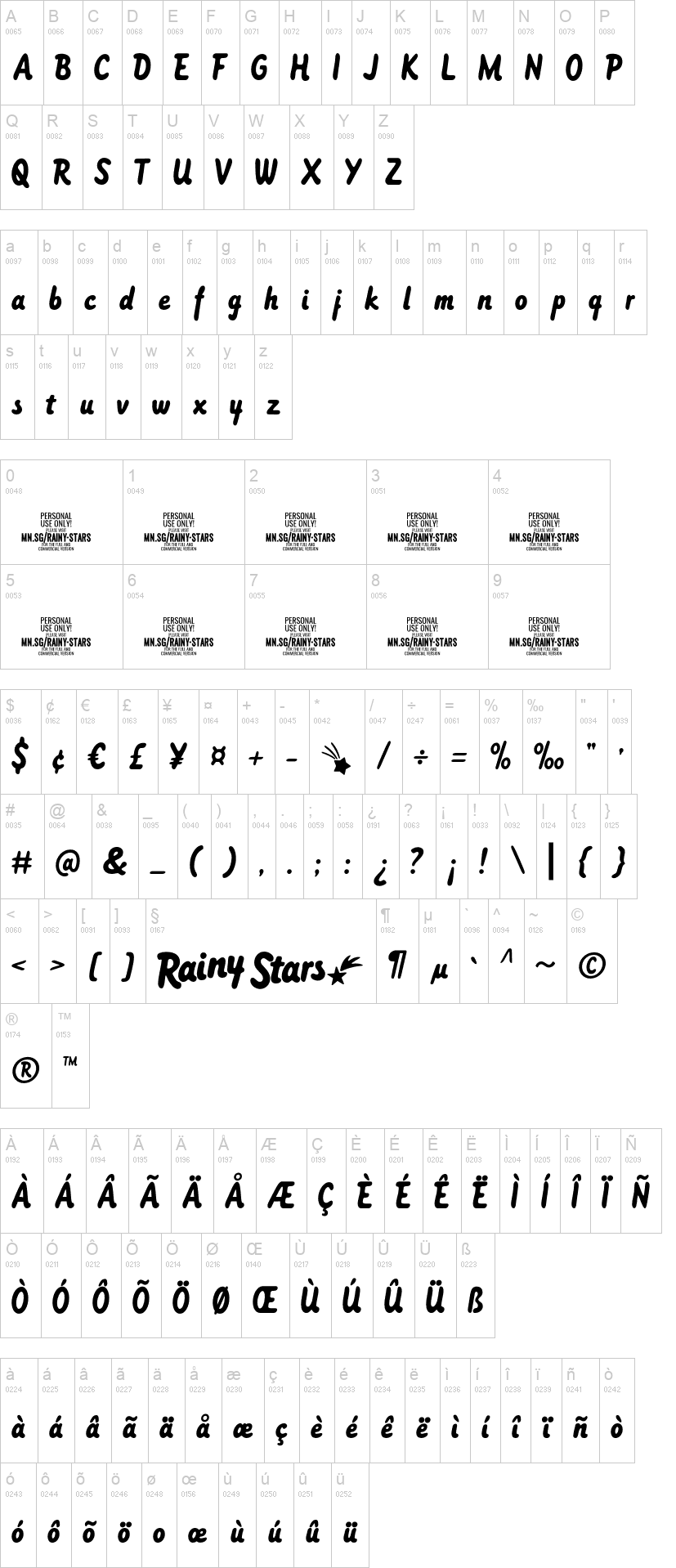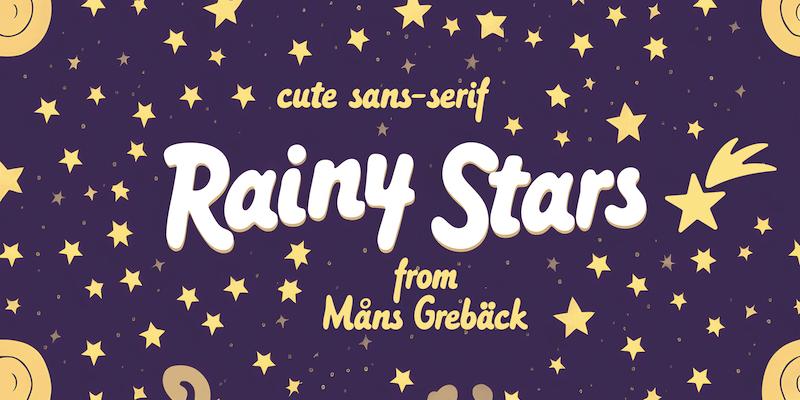
Rainy Stars is an irresistibly adorable, naive sans-serif font that captures the magic of a child's imagination. With its cute cartoon-like letterforms, this font adds a touch of whimsy and playfulness to your designs.
Use asterisk * to make a star.
Use multiple asterisks to make different space symbols.
Example: Magic**Planet